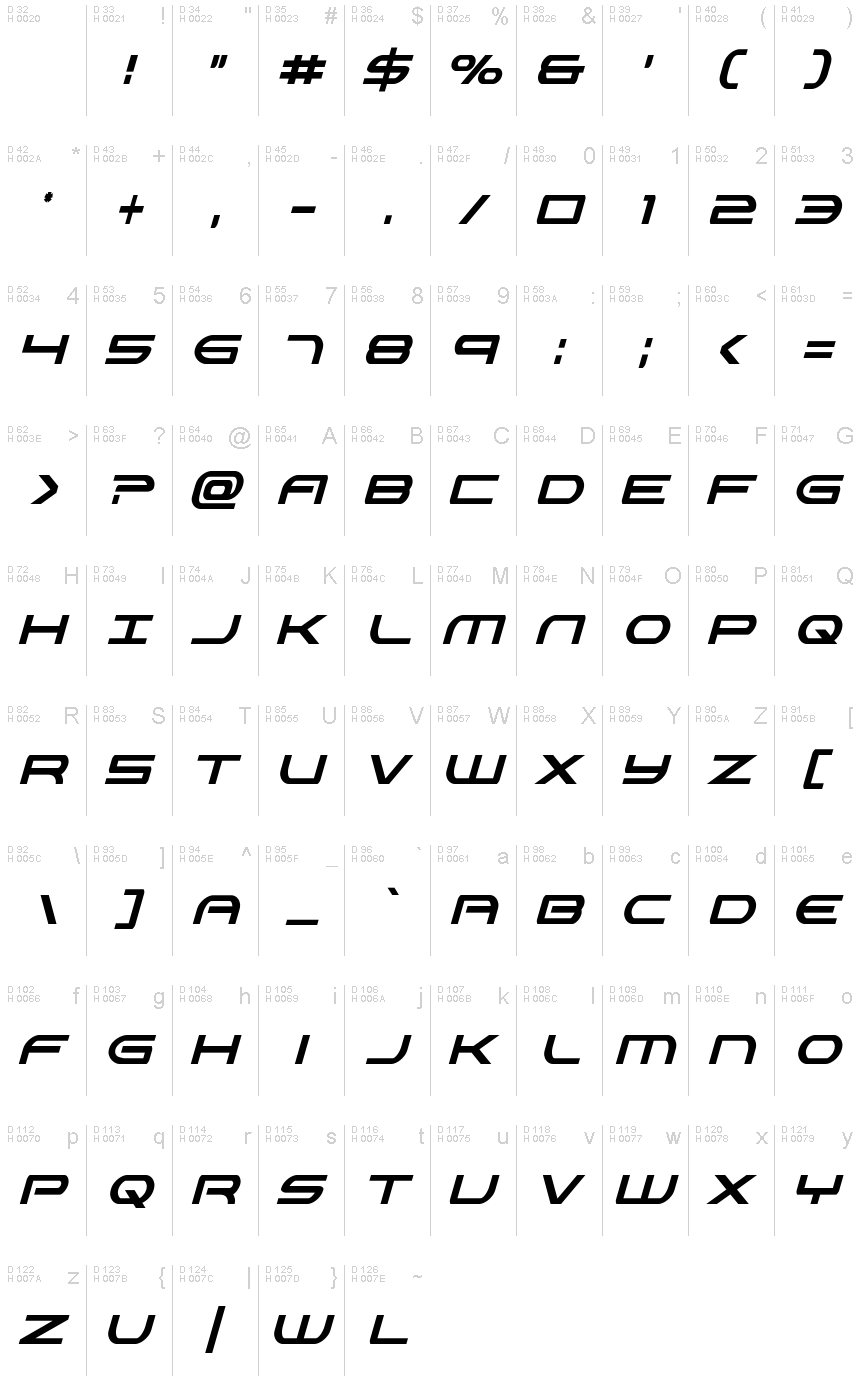
Antietam Extra-Condensed Ital
Antietam Extra-Condensed Italic font, part of the Antietam family designed by Iconian Fonts, stands out with its striking futuristic flair. Its unique design features an expanded structure that draws the eye, emphasizing sleek lines and graceful curves. The italic style enhances its dynamic presence, lending a sense of movement and modernity that captivates attention.
This font is ideal for a variety of design applications where impact and readability are essential. It shines in contexts like branding, advertising, and promotional materials, providing a bold statement that captures the viewer's imagination while maintaining clarity. Antietam Extra-Condensed Italic invites creativity and innovation, making it a perfect choice for projects seeking a contemporary edge.